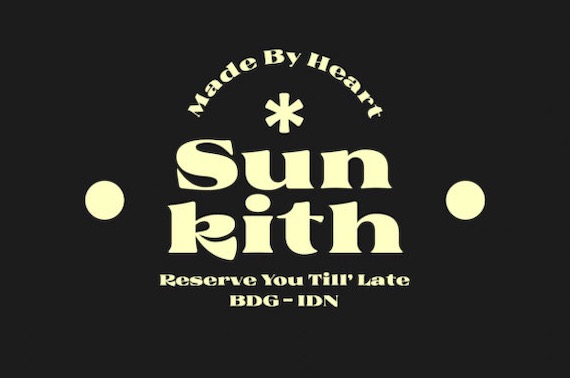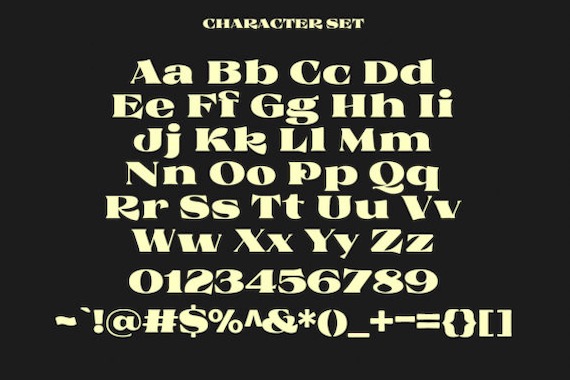
Rochek Font is a stylish and fancy display typeface that was created and shared by Maulana Creative. Add this thick lettered and cool font to your favorite creations and notice how easily they stand out. This font has bold expanded strokes, fun character along with a bit of alternate and ligatures. To give you extra creative work. Rochek font supports multilingual over 100+ languages.
Rochek Display Serif Font
Publisher: Maulana Creative